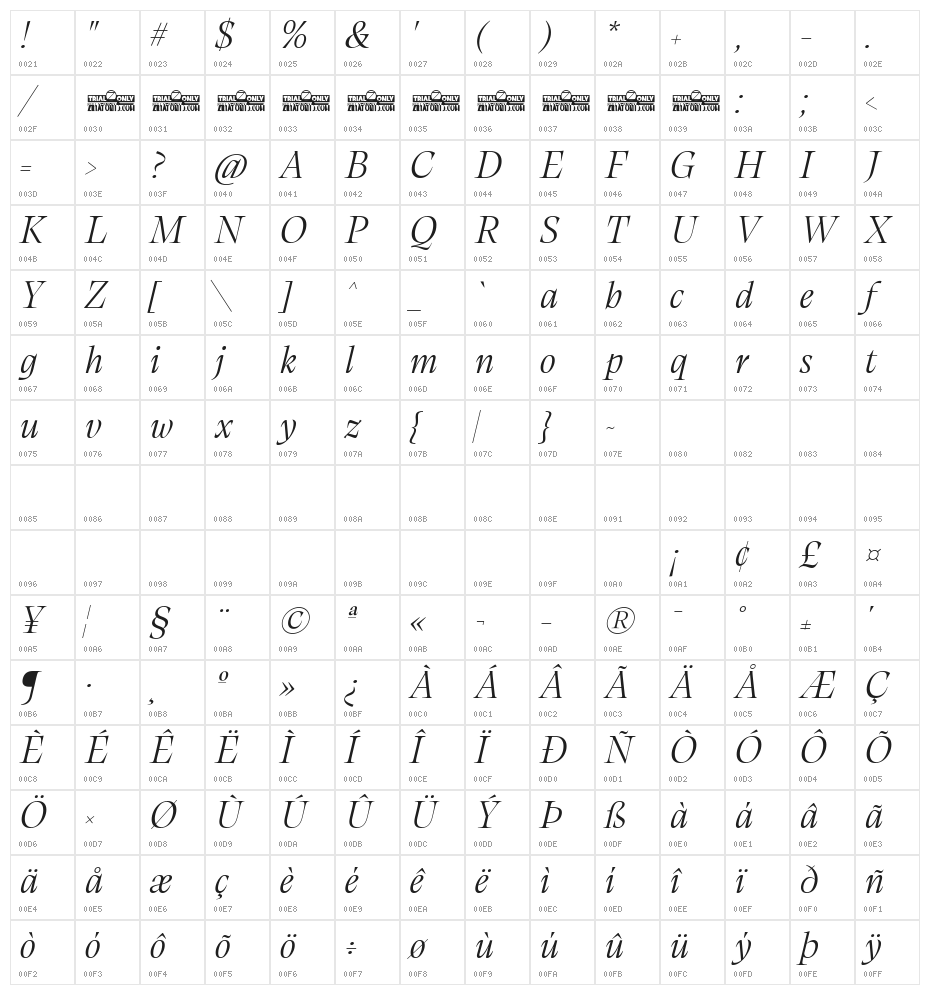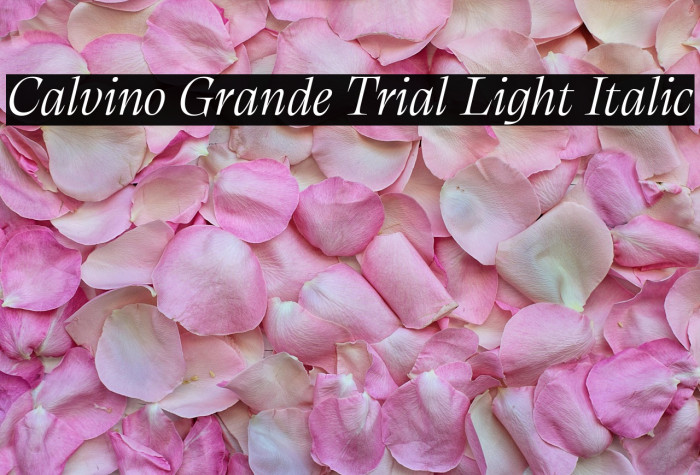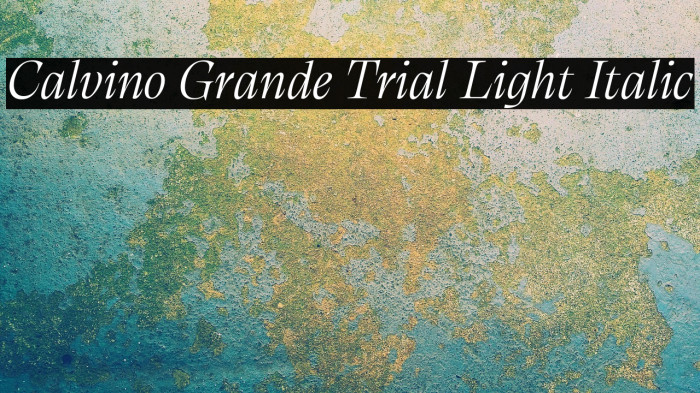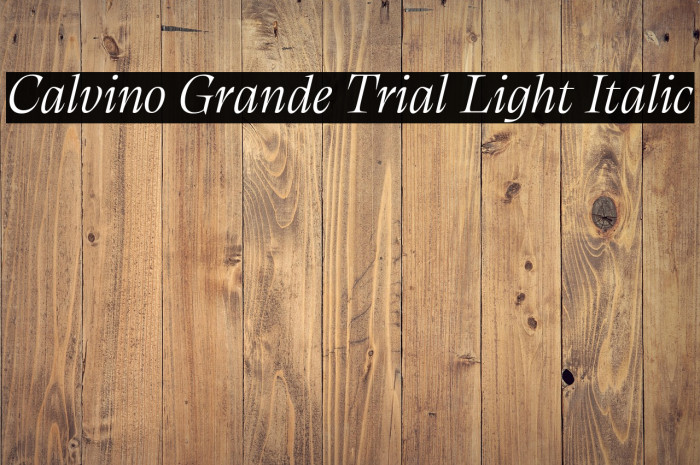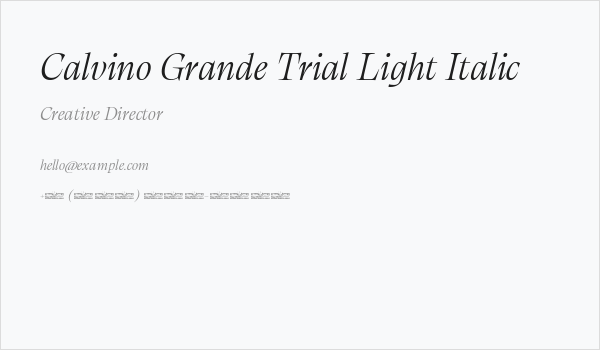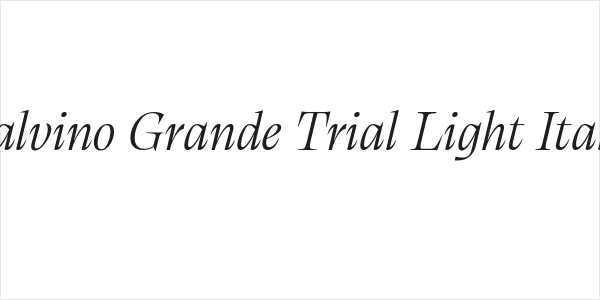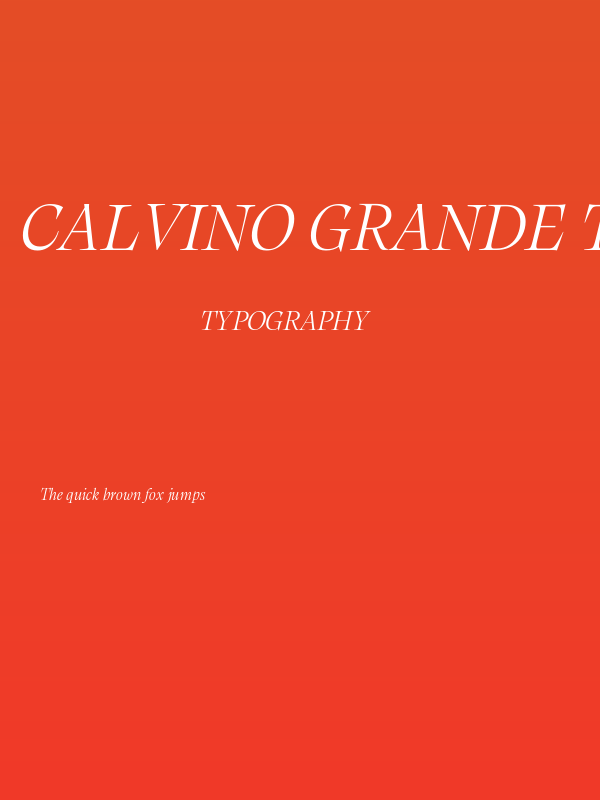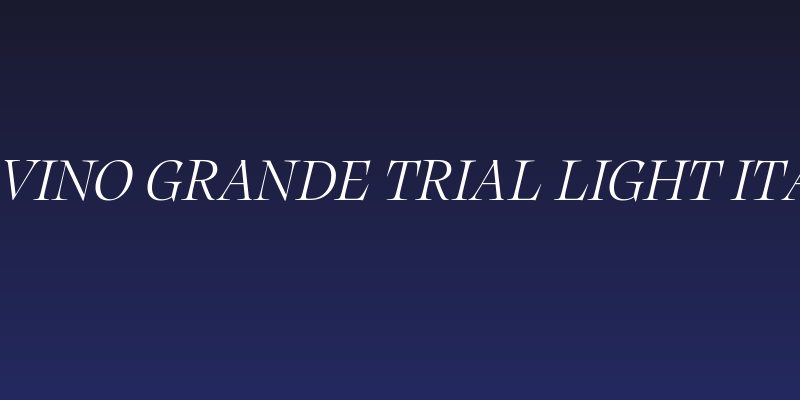
Calvino Grande Trial Light Italic Font
Calvino Grande Trial Light Italic Description
This elegant typeface features a refined and sophisticated design, characterized by its light weight and italic style. The letters exhibit a graceful slant, adding a sense of movement and fluidity. The strokes are delicate yet distinct, with a medium contrast that enhances readability while maintaining an airy feel. The serif details are subtle, lending a classic touch without overwhelming the overall modern aesthetic. This font is versatile, suitable for both digital and print media, offering a timeless appeal that can elevate any design project.
| Proposed Projects | Ideal for wedding invitations, luxury branding, editorial layouts, and elegant web design. |